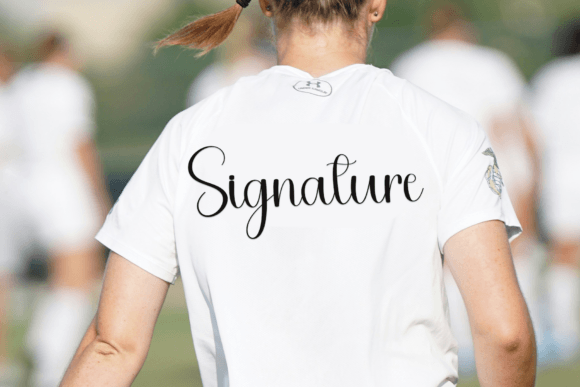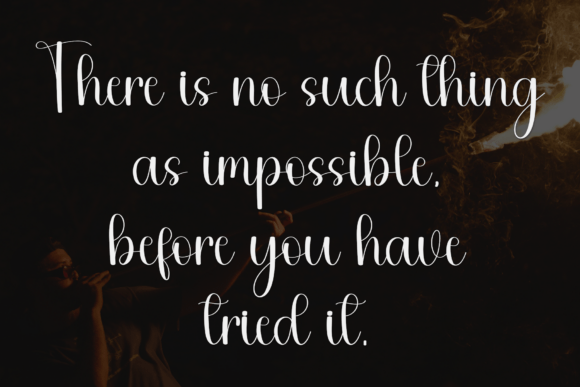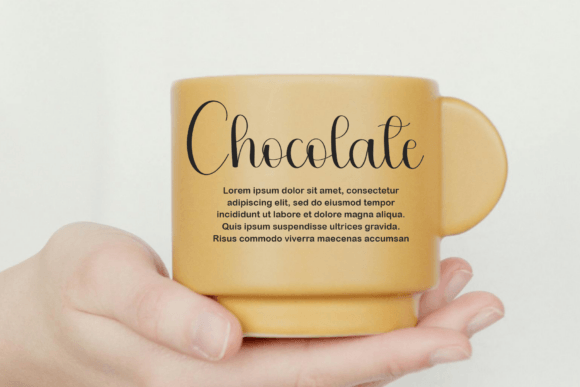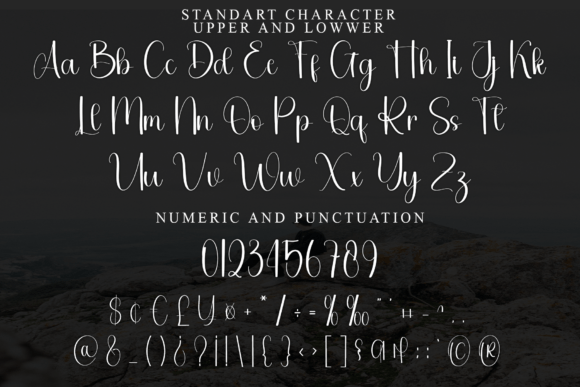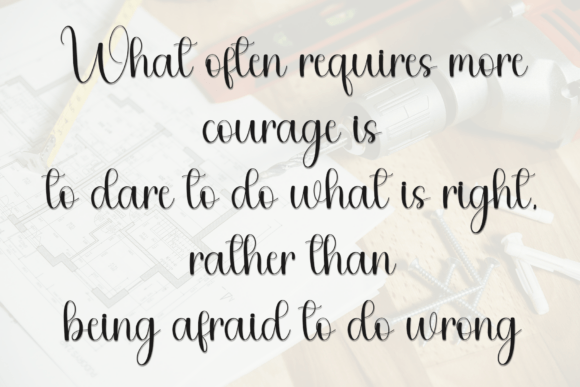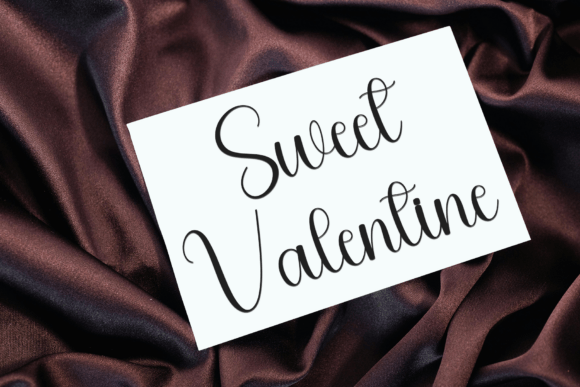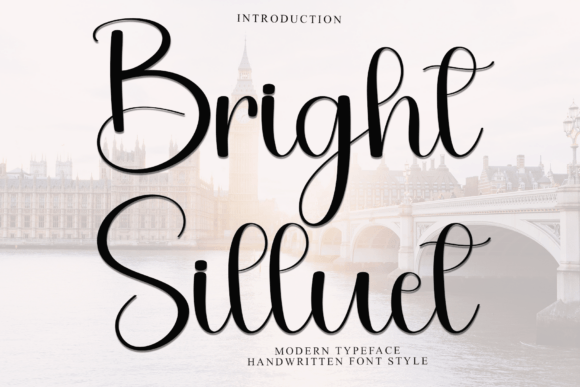
Introducing Bright Silluet Font: Elevate Your Designs with Elegance and Charm
Are you on the hunt for a font that exudes elegance, sophistication, and a touch of whimsy? Look no further than Bright Silluet Font, a stunning script font that is sure to take your designs to the next level. With its smooth, flowing letters and charming aesthetic, Bright Silluet is the perfect choice for designers and crafters looking to add a dash of beauty to their work.
What Makes Bright Silluet Font So Special?
Bright Silluet Font is a lovely script font that boasts a range of characteristics that make it truly unique. Its smooth, flowing letters are designed to evoke a sense of elegance and sophistication, making it perfect for a variety of design applications. Whether you’re creating invitations, logos, or any other type of design that needs a touch of charm, Bright Silluet Font is the perfect choice.
Key Features of Bright Silluet Font
• Elegant and Stylish: Bright Silluet Font features smooth, flowing letters that are both elegant and stylish.
• Perfect for Invitations: With its charming aesthetic, Bright Silluet Font is perfect for creating beautiful invitations for weddings, parties, and other special occasions.
• Versatile: Bright Silluet Font can be used for a wide range of design applications, including logos, branding, and packaging.
• Easy to Read: Despite its elegant and cursive nature, Bright Silluet Font is easy to read, making it perfect for both digital and print designs.
How to Use Bright Silluet Font in Your Designs
Using Bright Silluet Font in your designs is easy. Here are a few tips to get you started:
• Pair it with a Bold Font: For a striking contrast, pair Bright Silluet Font with a bold, sans-serif font.
• Use it for Headings: Bright Silluet Font is perfect for headings and titles, adding a touch of elegance and sophistication to your designs.
• Add a Pop of Color: To really make Bright Silluet Font stand out, add a pop of color to your design.
Why Designers and Crafters Love Bright Silluet Font
Designers and crafters love Bright Silluet Font for a variety of reasons. Here are a few:
• Unique and Eye-Catching: Bright Silluet Font is a unique and eye-catching font that is sure to grab attention.
• Elegant and Sophisticated: With its smooth, flowing letters, Bright Silluet Font exudes elegance and sophistication.
• Versatile: Bright Silluet Font can be used for a wide range of design applications, making it a versatile addition to any designer’s toolkit.
In conclusion, Bright Silluet Font is a stunning script font that is sure to elevate your designs to the next level. With its smooth, flowing letters and charming aesthetic, it’s perfect for designers and crafters looking to add a touch of elegance and sophistication to their work. Whether you’re creating invitations, logos, or any other type of design, Bright Silluet Font is the perfect choice.